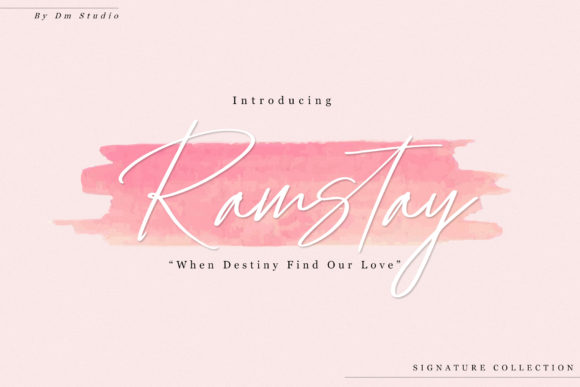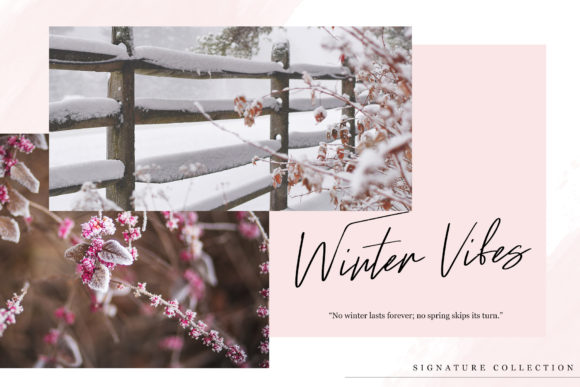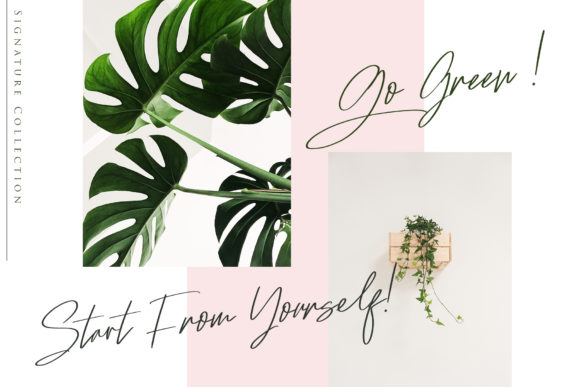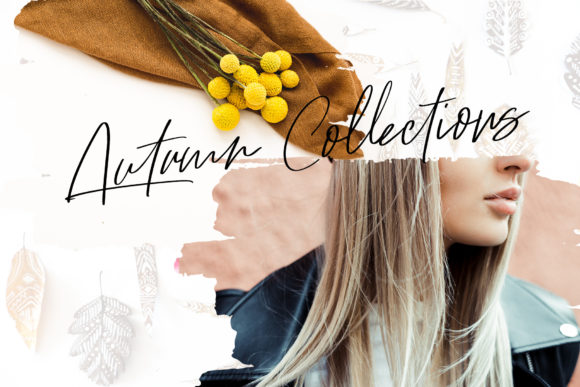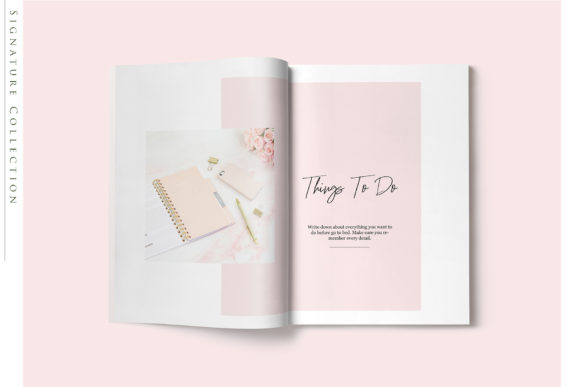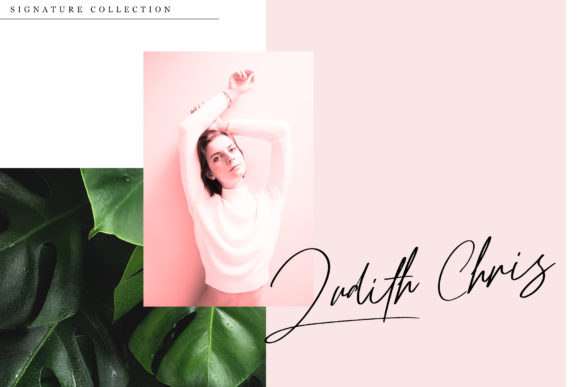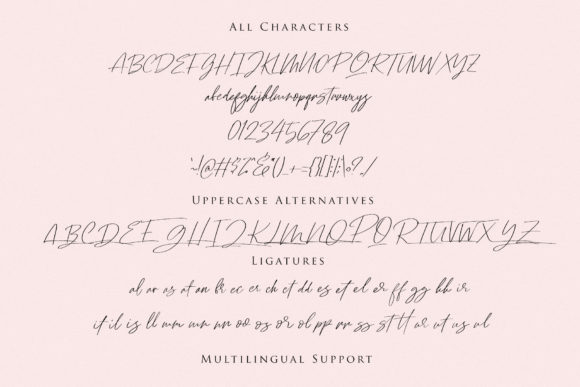
HomeScript FontsRamstay Font Script Fonts Ramstay Font FacebookXPinterestWhatsApp Ramstay Font Poster 2 Ramstay Font Poster 3 Ramstay Font Poster 4 Ramstay Font Poster 5 Ramstay Font Poster 6 Ramstay Font Poster 7 About Ramstay Font Ramstay is a sweet and charming script that will turn any design project into a true standout! DOWNLOAD NOW People also explored Showing Font Ikseer Font Christmas Nice Font Nostalgiz Font Woman Beauty Font Raised Font Hey Teacher Font Christmas Soul Font Southfilla Script Font 342 0 TagsRamstay Font Previous articleCherryball FontNext articleMarliesta Font LEAVE A REPLY Cancel reply Comment: Please enter your comment! Name:* Please enter your name here Email:* You have entered an incorrect email address! Please enter your email address here Website: Save my name, email, and website in this browser for the next time I comment. Personal Use Free Cute Butterfly Personal Use Free Read more about this font Boronic Personal Use Free Read more about this font Urkelian Personal Use Free Read more about this font A New Nattyla Personal Use Free Read more about this font BLOG Free vs Paid Fonts: Why Investing in Premium Fonts Is Worth It Free vs Paid Fonts: Why Premium Fonts Are Worth It in 2025 The debate of free vs paid fonts continues in the design world. While... To increase your work productivity, choose the most readable fonts. Transform Your Website: Elevate Your Typography with 7 Best Web Font Generators Top 10 Handwritten Fonts That Elevate Your Designs